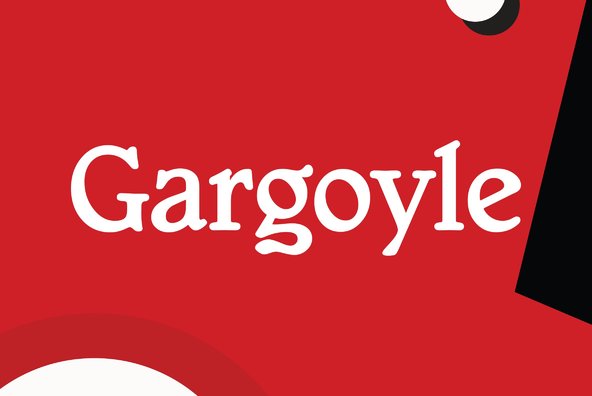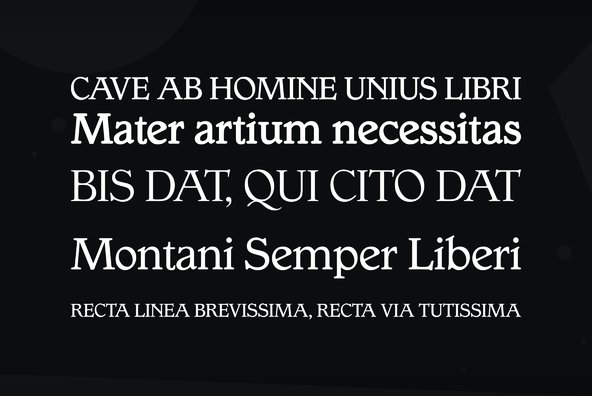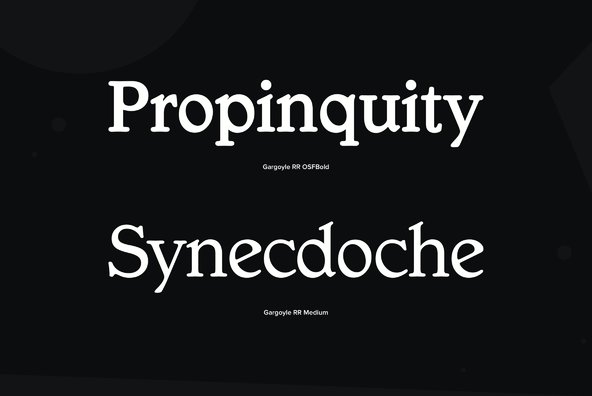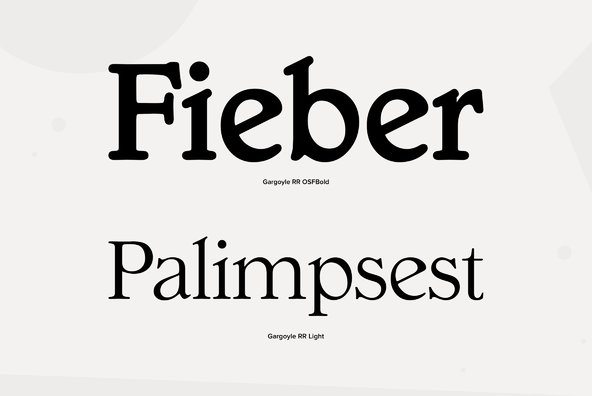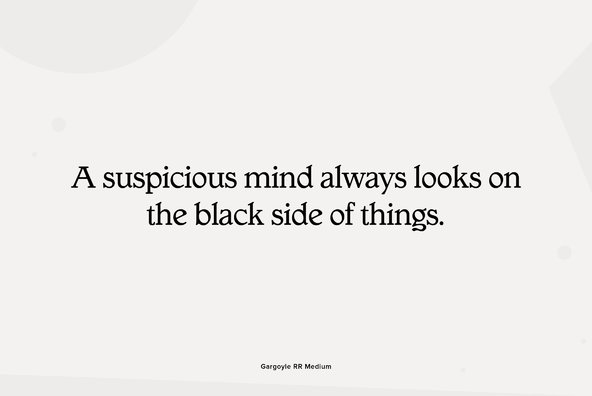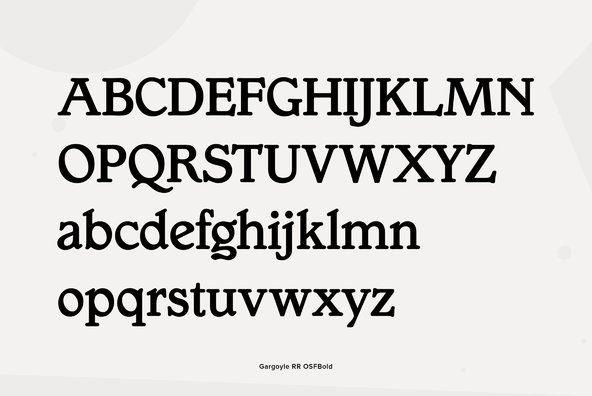
Gargoyle
Designed by Steve Jackaman, Gargoyle is based on the original Adrian Williams typeface design, circa 1976 and Brook Type in 1903 designed by Lucien Pissaro.